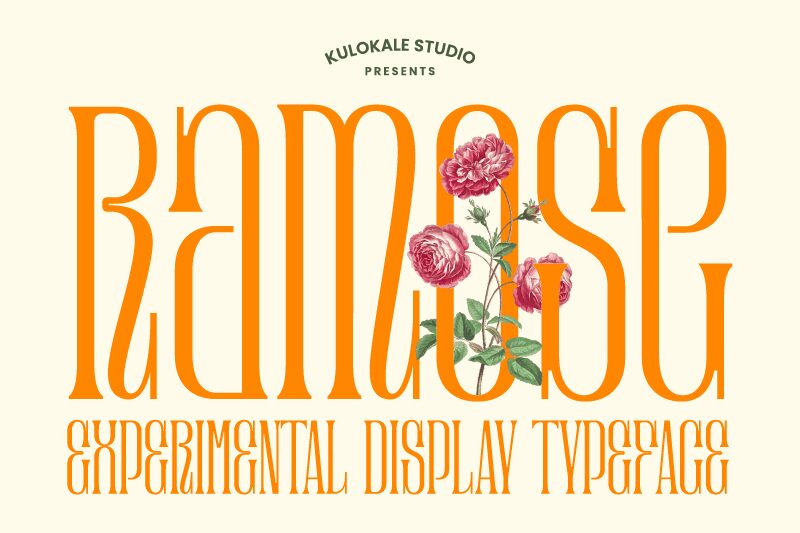
Ramose, designed by Kulokale Studio, is a captivating display font that effortlessly combines retro charm with a touch of sophistication. With its semi-light weight and extra-condensed width, this font exudes a unique sense of elegance and versatility. Perfect for branding projects that require a nostalgic yet modern aesthetic, Ramose adds character to logos, packaging designs, and advertisements. Its retro serif style evokes a sense of vintage authenticity while remaining contemporary. Whether you're designing for fashion labels or hipster cafes, Ramose is the ideal choice to make your project stand out from the crowd.
Ramose
M Arif Dwi Prasetyo & Eko Nurcahyo